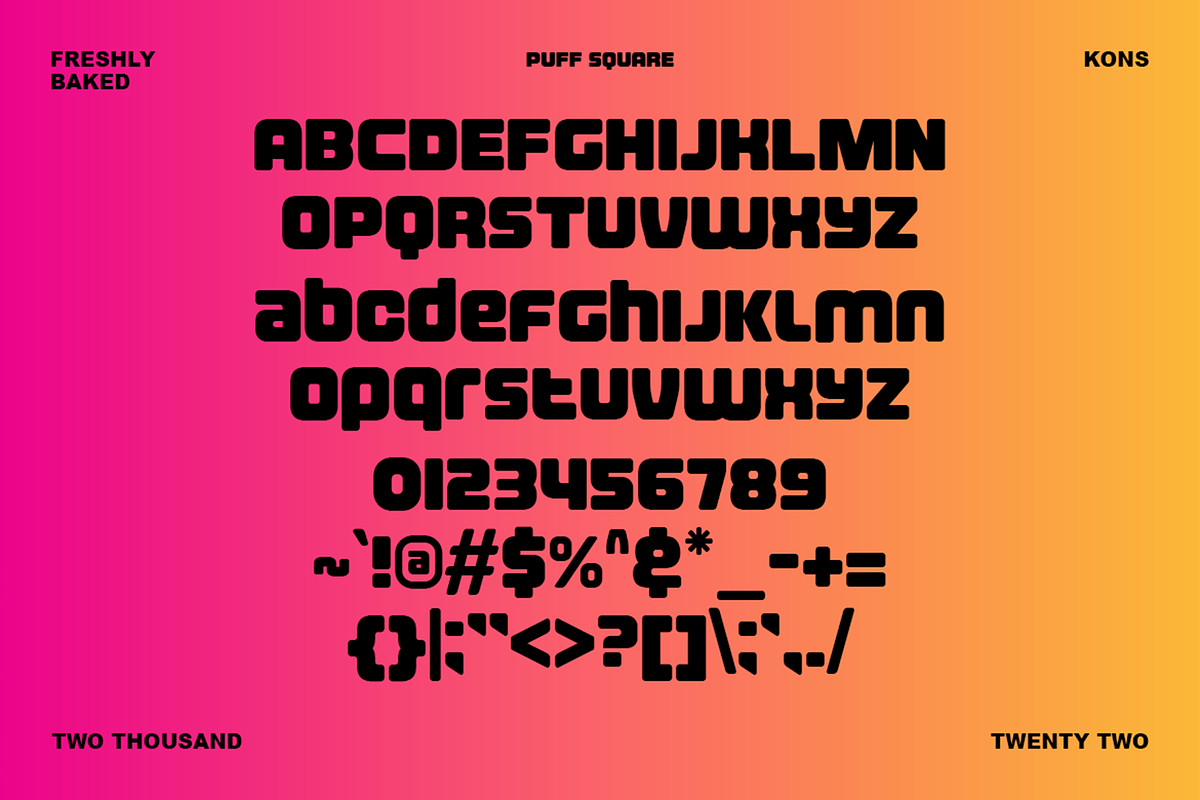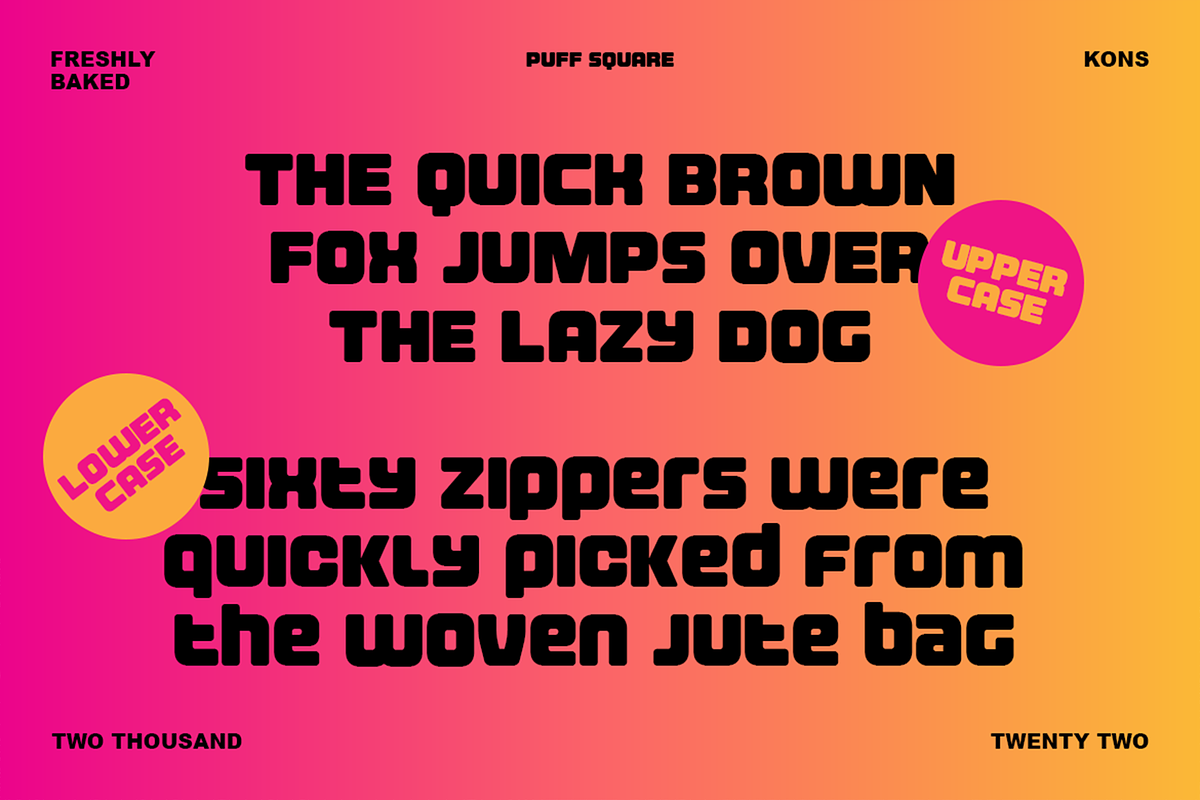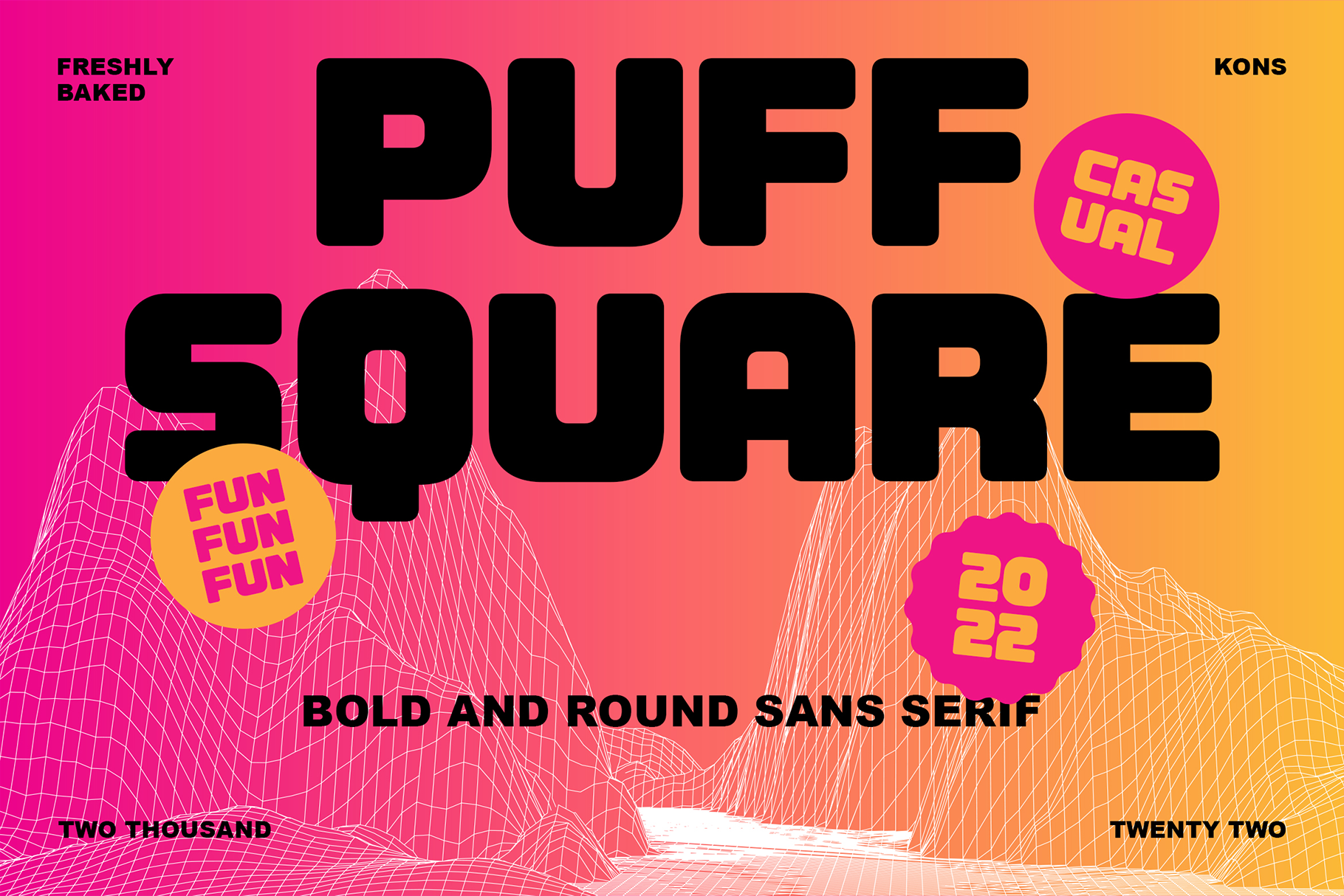
Puff Square – Casual Fun Fonts
Introducing PUFF SQUARE, the chunky, bold sans-serif display font that transforms your visuals with its playful charm. Rounded at every corner, this font exudes a casual and fun vibe, making it perfect for projects that need a touch of whimsy and creativity. Whether you're designing for a playful brand, crafting eye-catching posters, or adding a unique flair to your digital content, PUFF SQUARE is your go-to choice for a vibrant and engaging aesthetic.